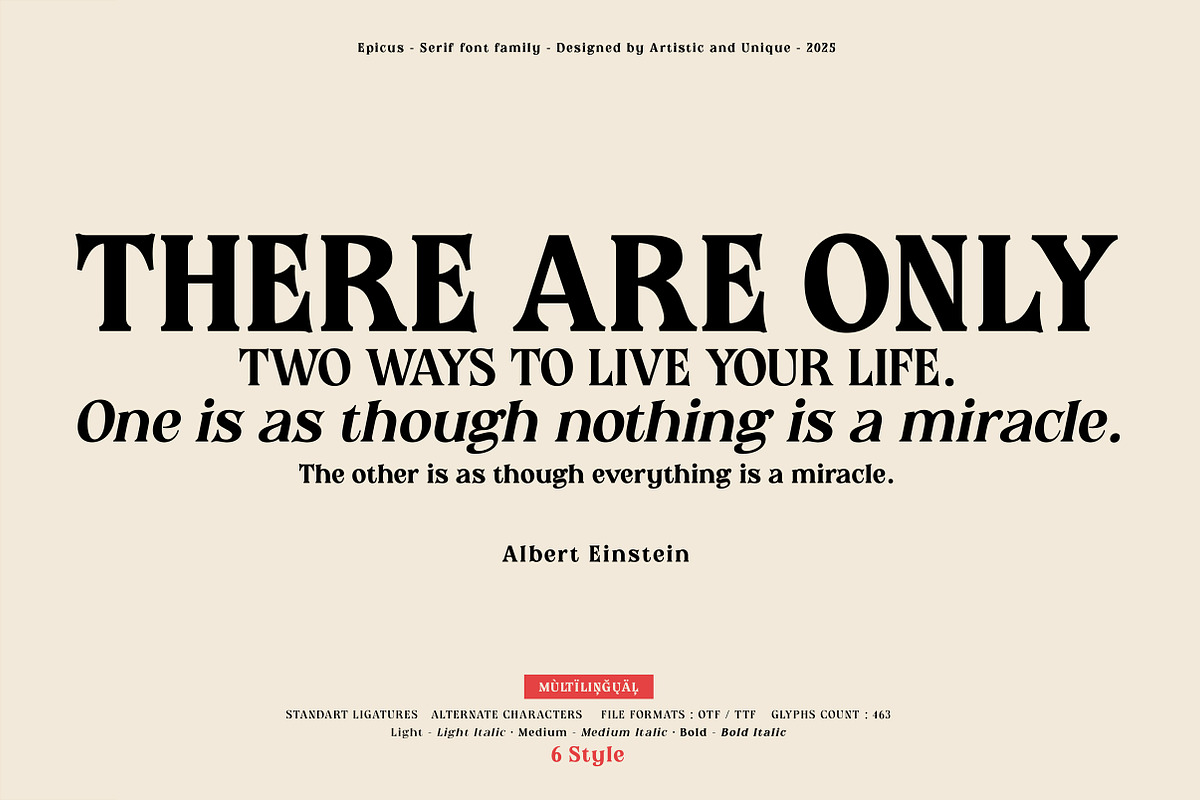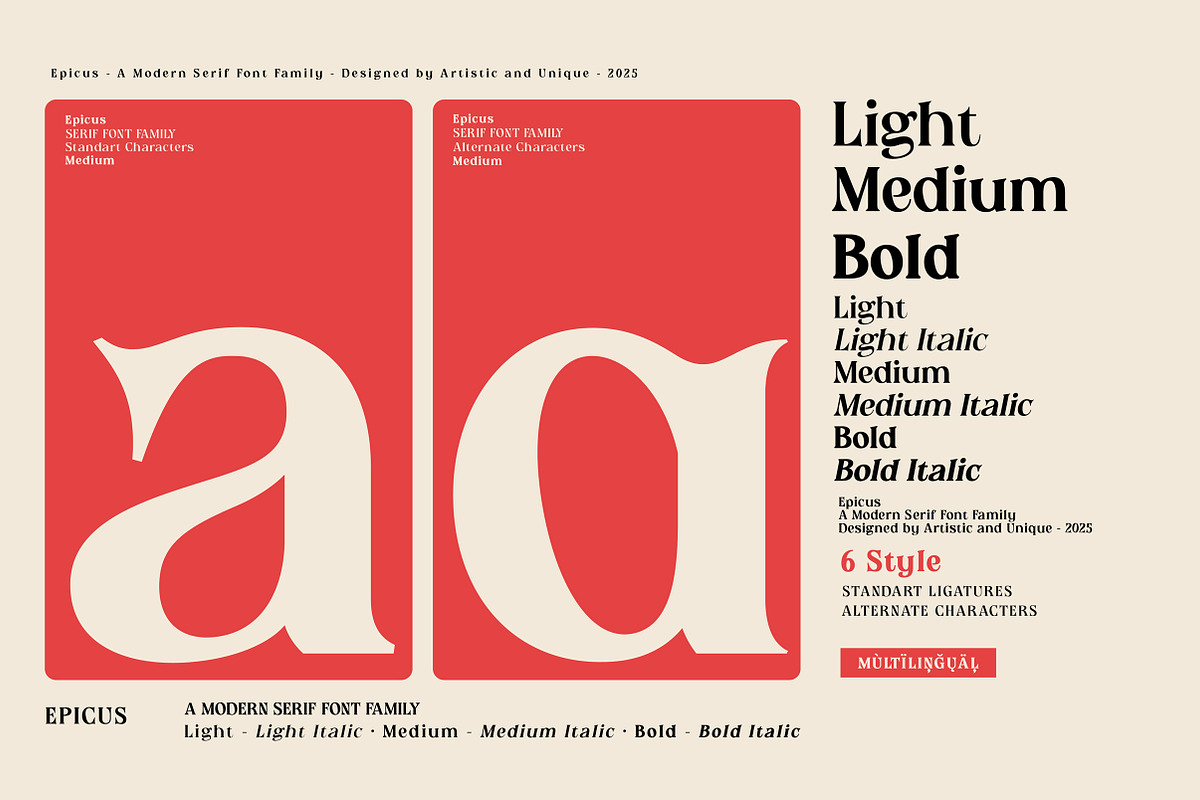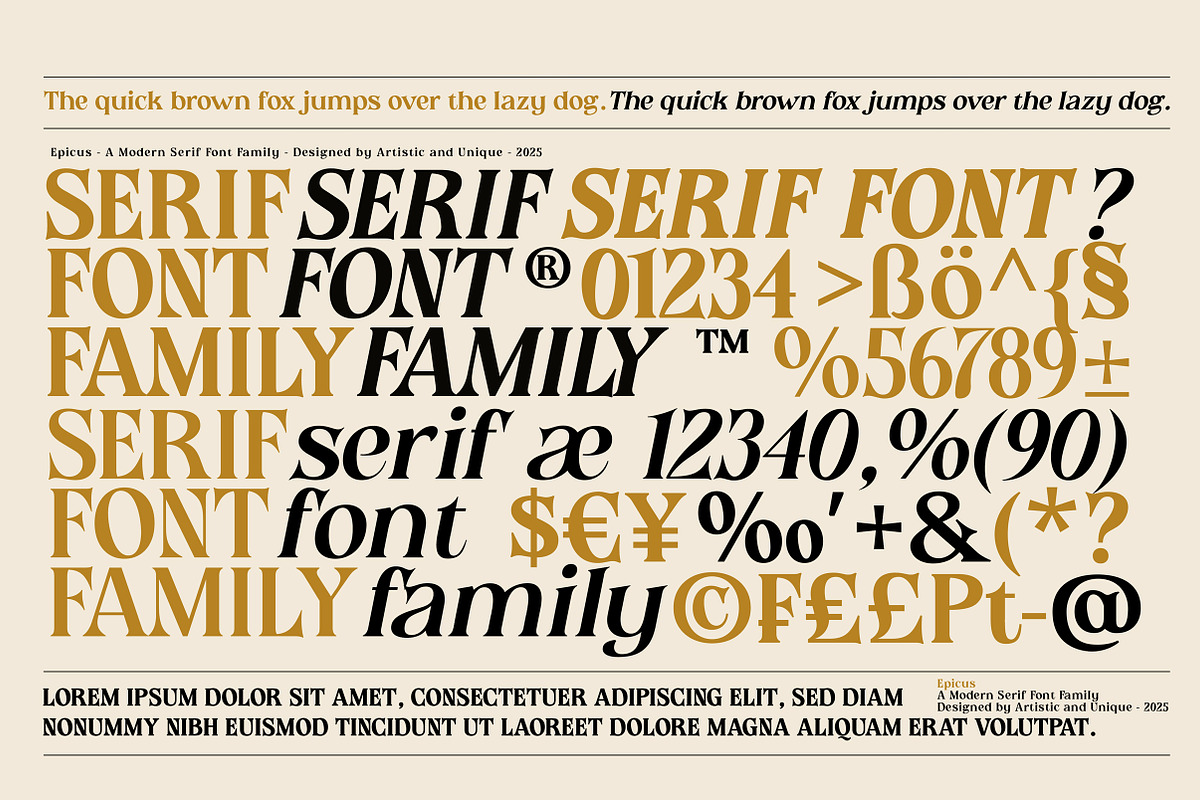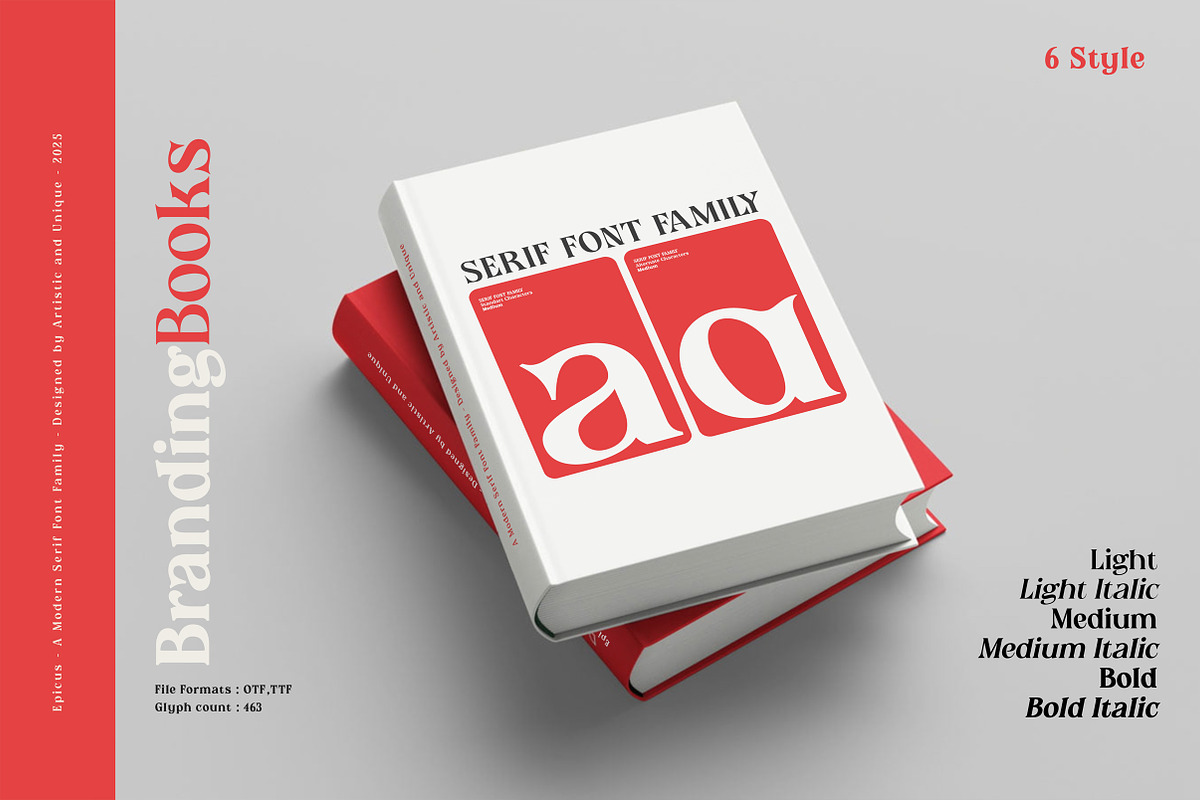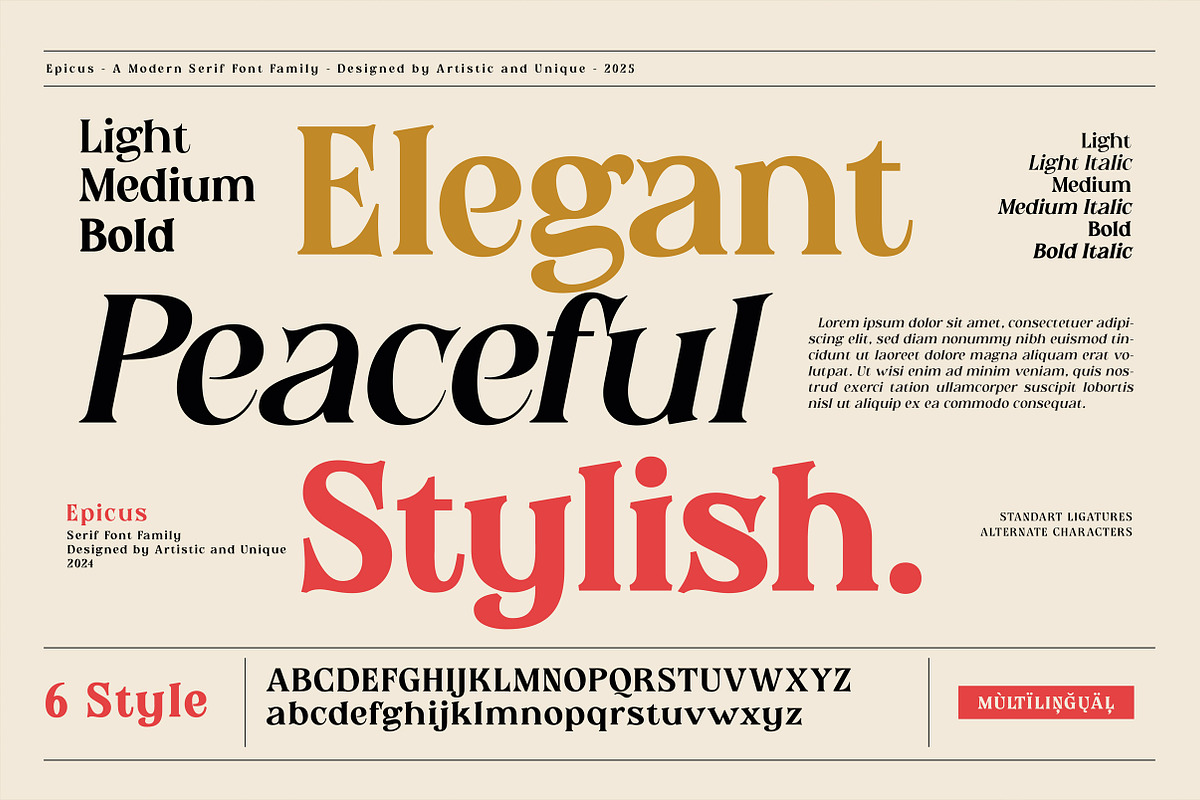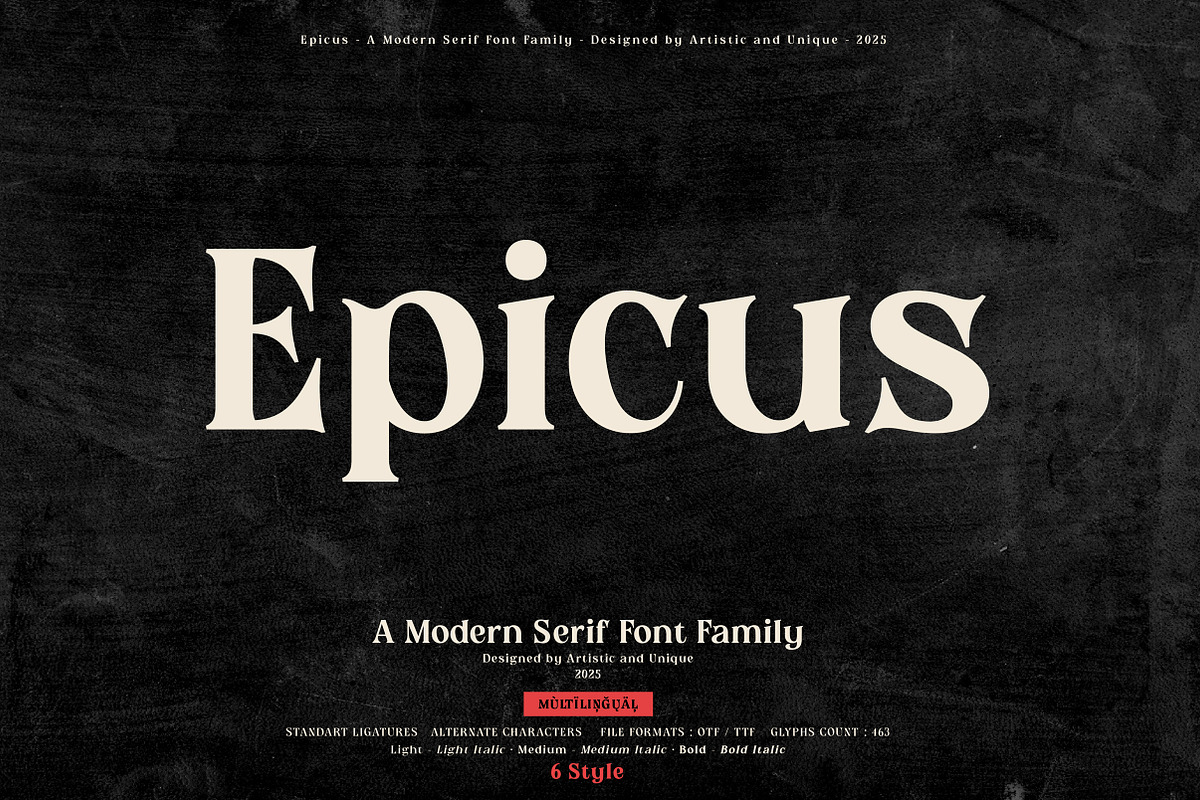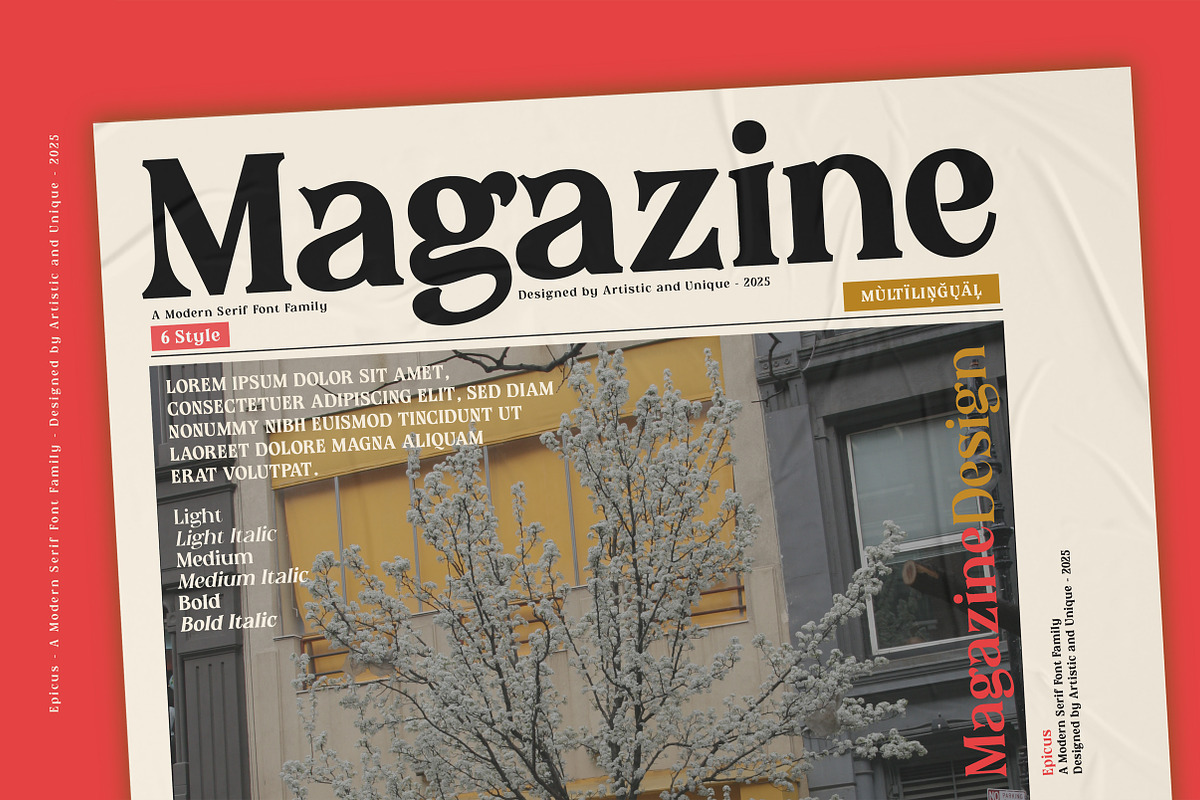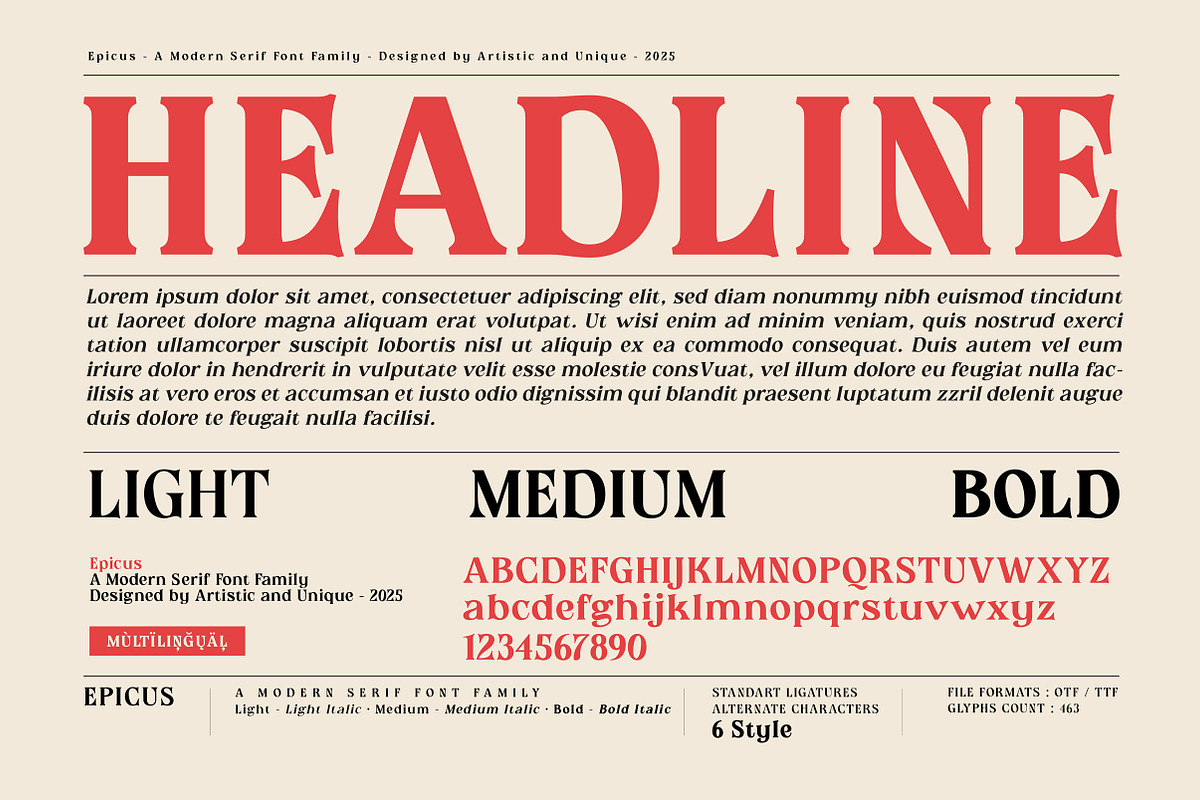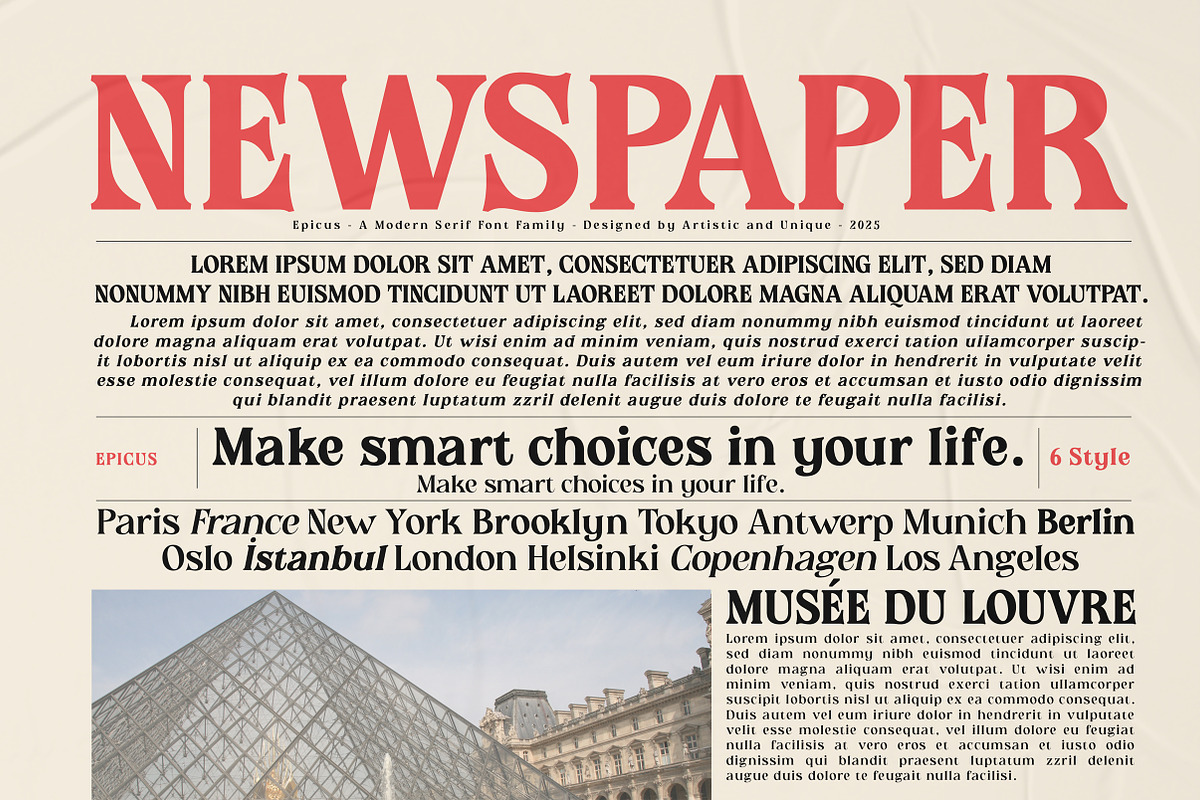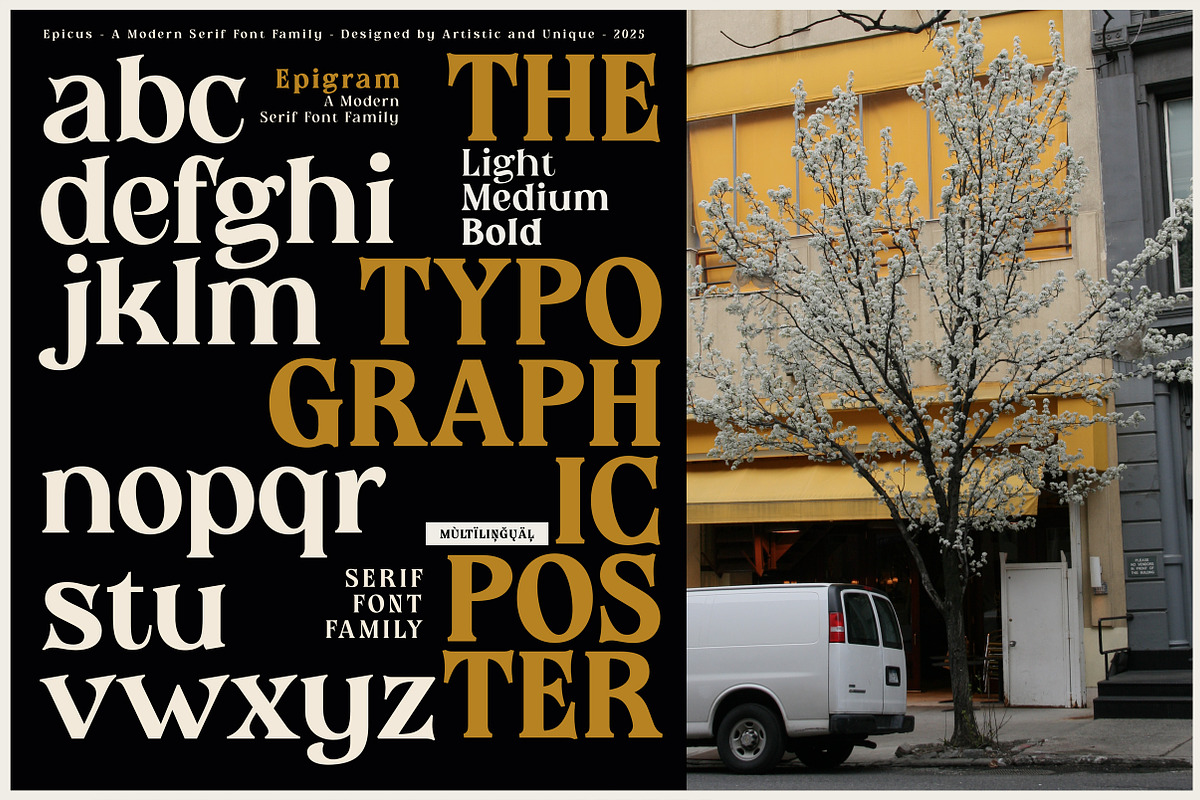
Epicus - Serif font family
Epicus - Serif font family - 6 Styles - Multilingual supports.
Epicus is a stylistic and powerful serif font family with different alternative type designs. You will have the opportunity to enrich the content of your projects with alternative characters. This font comes with multi-language support and 6 styles. It has an elegant structure that can be effective in the development of your projects.
According to the purpose of use in typographic compositions that you will create with the aesthetic structure of alternative characters; You can enrich your titles in books or magazines, and your logos in branding.
You can take advantage of the elegant structure of standard characters in your plain texts. Especially for editorials, magazines, books, branding, logo design, web design, headlines, movie titles etc.
With this font you can create your unique designs.